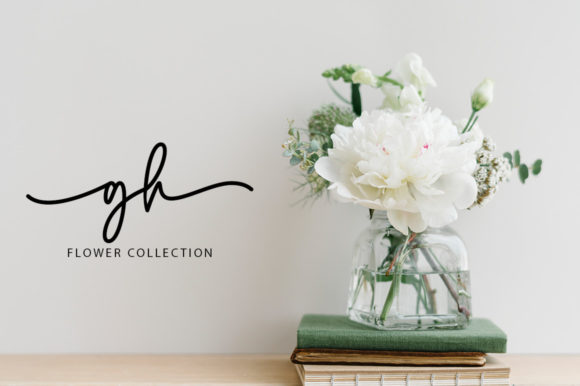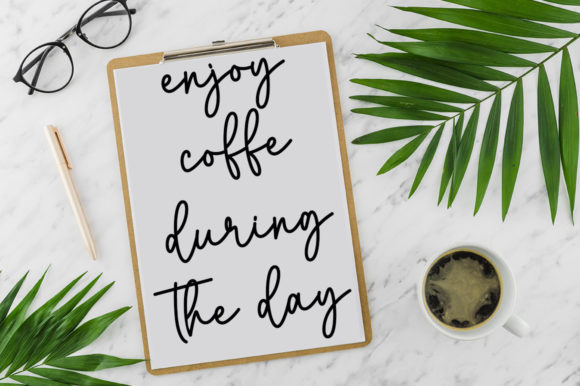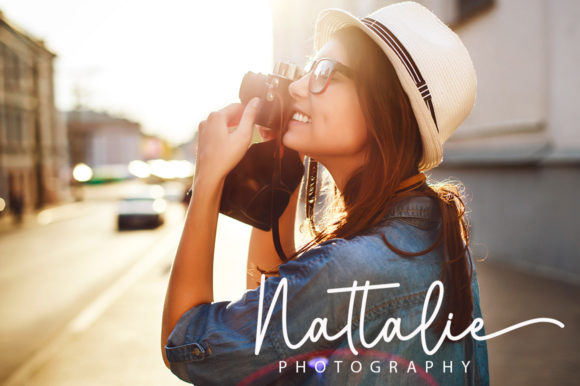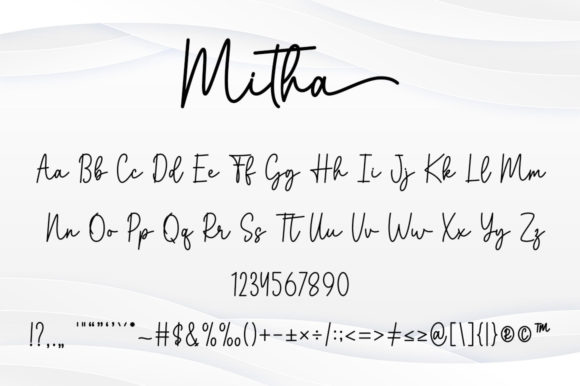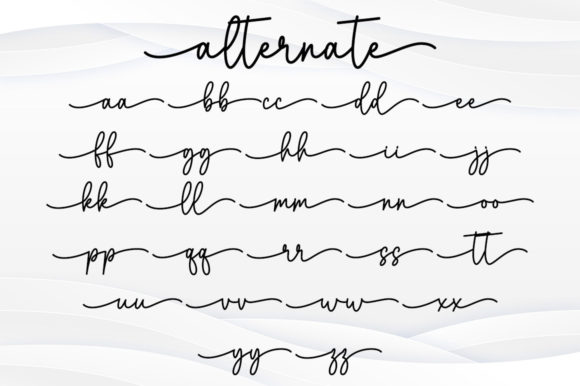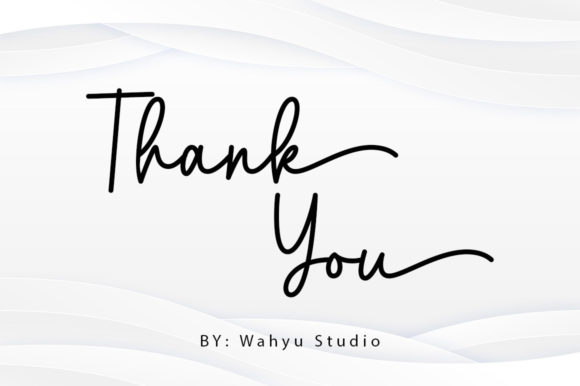
Introduction to Mitha Font
Have you ever stared at a blank canvas, desperately searching for the perfect font to bring your creative project to life? For many designers, this moment of inspiration is a game-changer – it’s the spark that sets off a chain reaction of imagination and innovation. And for those who have discovered the Mitha Font, this moment comes all too often.
This elegant script font has captured the hearts of designers worldwide, not just for its beauty, but for its versatility and ease of use. With Mitha Font, you can add a touch of sophistication and flair to your projects, whether you’re working on a logo, a wedding invitation, or a branding campaign. And the best part? Mitha Font is PUA encoded, making it a high-quality design resource that’s a must-have for any serious designer.
Key Features of Mitha Font
- Designed with a unique, elegant style that sets it apart from other fonts
- Includes multiple font styles and weights for added flexibility
Honest Review: Mitha Font
The Mitha Font is a beautiful, elegant script font that is perfect for adding a touch of sophistication to your design. It features a transparent background, which makes it easy to use on a variety of backgrounds and design elements. ✨
- The font is highly customizable, with a wide range of sizes and styles available.
- The transparent background makes it easy to use on complex designs.
However, I did notice a few limitations with the Mitha Font. ⚠️
- The font may not be suitable for very small text sizes, as it can become difficult to read.
- The font is only available in a few different styles, which may limit its versatility.
Overall, I was impressed with the Mitha Font and would definitely recommend it as a design resource. While it has a few limitations, its high quality and versatility make it a great choice for a variety of creative projects.
Getting the Most Out of Mitha Font
To get the most out of Mitha Font, use it in combination with a transparent background to create high-quality design elements. This will allow you to achieve a clean and modern look in your creative projects.
The Mitha Font is commonly used in design projects that require a clean and modern look, such as logos, brochures, and social media graphics. Its high quality and transparent background make it an ideal design resource for creative professionals.